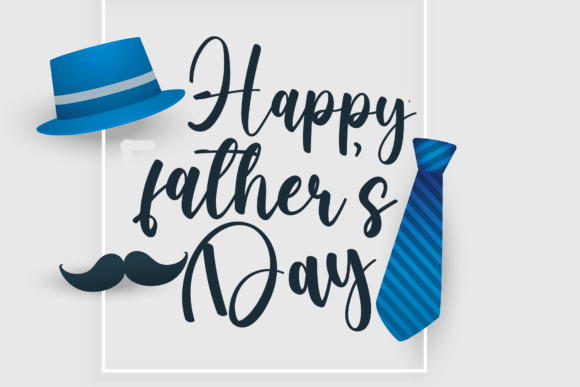
Introducing Belive Font: The Perfect Blend of Elegance and Modernity
In the world of typography, fonts play a crucial role in conveying the tone and personality of a brand or design. Among the numerous fonts available, Belive Font stands out as a stunning script calligraphy font that exudes elegance and modernity. With its bouncy and bold characteristics, Belive Font is an excellent choice for various design projects, including weddings, invitations, stickers, sublimation, cards, birthday designs, t-shirt designs, farmhouse designs, and more.
What Makes Belive Font Unique?
Belive Font boasts a distinctive blend of traditional calligraphy and modern flair, making it an exceptional addition to any design project. Its unique features include:
- Bouncy and bold strokes: Belive Font’s strokes are characterized by a lively, bouncy feel that adds a touch of playfulness to any design.
- Elegant and modern touch: The font’s elegant and modern aesthetic makes it perfect for designs that require a sophisticated look.
- Script calligraphy style: Belive Font’s script calligraphy style lends a personal and artistic touch to any design.
Perfect for Various Design Projects
Belive Font’s versatility makes it an excellent choice for a wide range of design projects, including:
- Weddings and invitations: The font’s elegant and modern touch makes it perfect for wedding-related designs, such as invitations, save-the-date cards, and wedding stationery.
- Stickers and sublimation: Belive Font’s bold and playful strokes make it an excellent choice for sticker designs and sublimation projects.
- Cards and birthday designs: The font’s friendly and approachable feel makes it perfect for card designs and birthday projects.
- T-shirt designs: Belive Font’s bold and modern aesthetic makes it an excellent choice for t-shirt designs that require a statement piece.
- Farmhouse designs: The font’s rustic and elegant feel makes it perfect for farmhouse designs, such as signs, labels, and branding materials.
Benefits of Using Belive Font
By incorporating Belive Font into your design projects, you can enjoy several benefits, including:
- Enhanced visual appeal: Belive Font’s unique and elegant aesthetic can elevate the visual appeal of your designs.
- Increased legibility: The font’s clear and bold strokes ensure that your text is easy to read and understand.
- Versatility: Belive Font can be used for a wide range of design projects, making it an excellent addition to your font library.
- Time-saving: With Belive Font, you can create stunning designs quickly and efficiently, saving you time and effort.
Tips for Using Belive Font Effectively
To get the most out of Belive Font, consider the following tips:
- Pair with complementary fonts: Combine Belive Font with complementary fonts to create a visually appealing and harmonious design.
- Experiment with colors and textures: Play with different colors and textures to add depth and interest to your designs.
- Use for headlines and titles: Belive Font’s bold and elegant aesthetic makes it perfect for headlines and titles.
- Keep it simple: Don’t overcomplicate your design – keep it simple and let Belive Font’s unique aesthetic shine.
In conclusion, Belive Font is a stunning script calligraphy font that offers a perfect blend of elegance and modernity. With its bouncy and bold characteristics, Belive Font is an excellent choice for various design projects, including weddings, invitations, stickers, sublimation, cards, birthday designs, t-shirt designs, farmhouse designs, and more. By incorporating Belive Font into your design projects, you can enhance the visual appeal, increase legibility, and enjoy versatility and time-saving benefits.
- Is Belive Font suitable for body text?: Belive Font is best suited for headlines and titles, but can be used for body text in certain design projects.